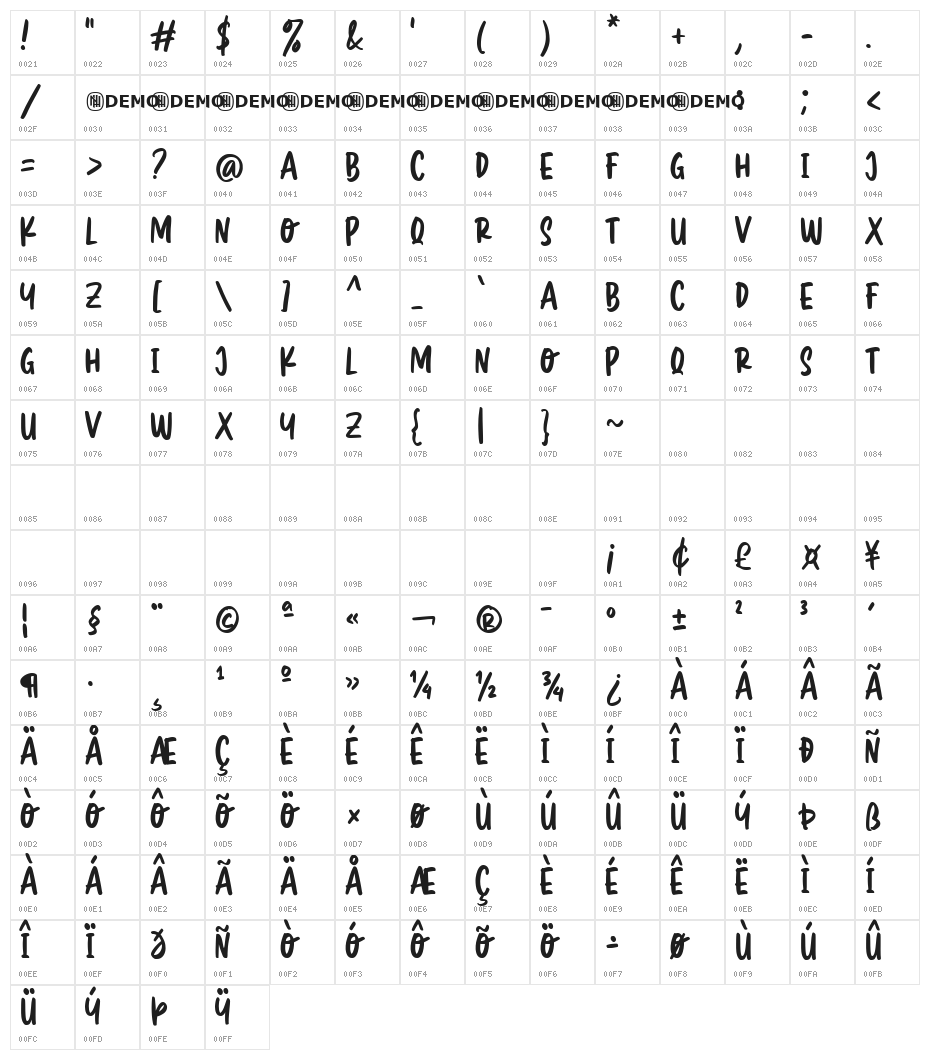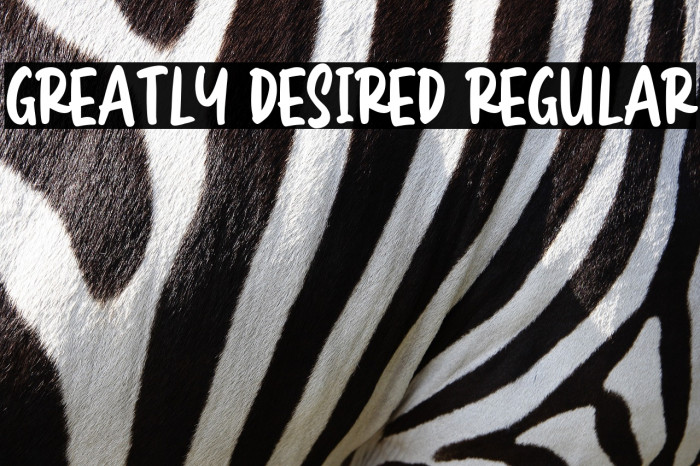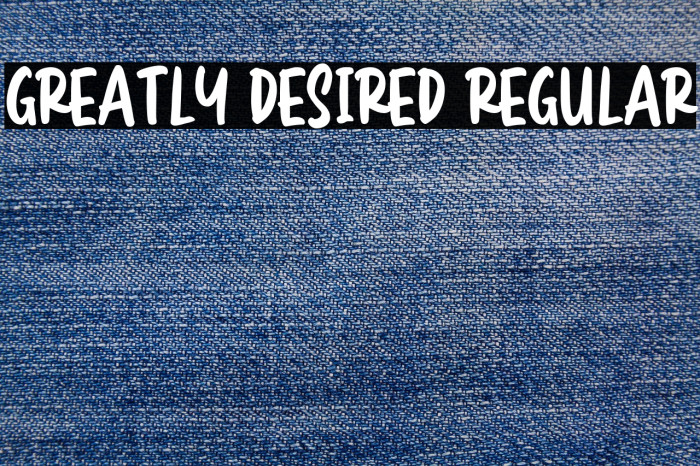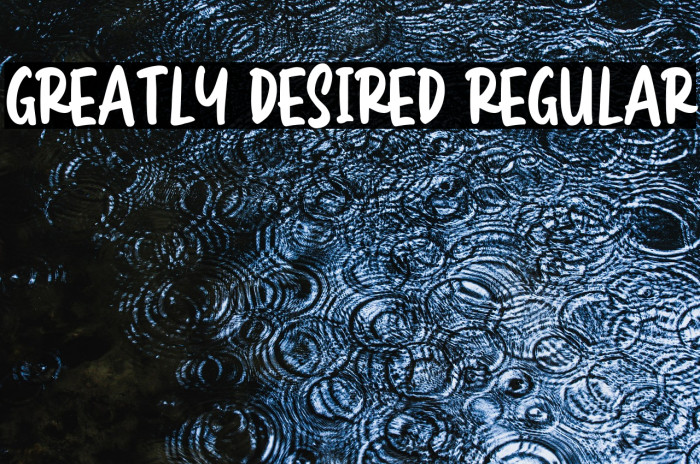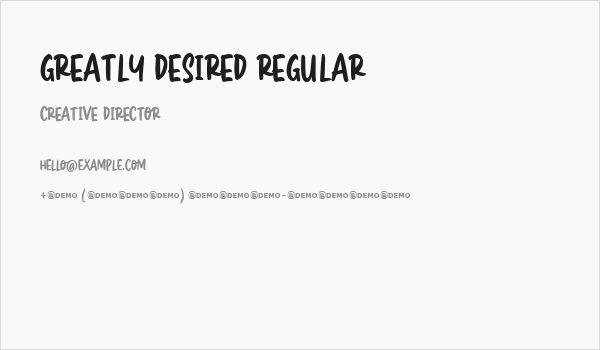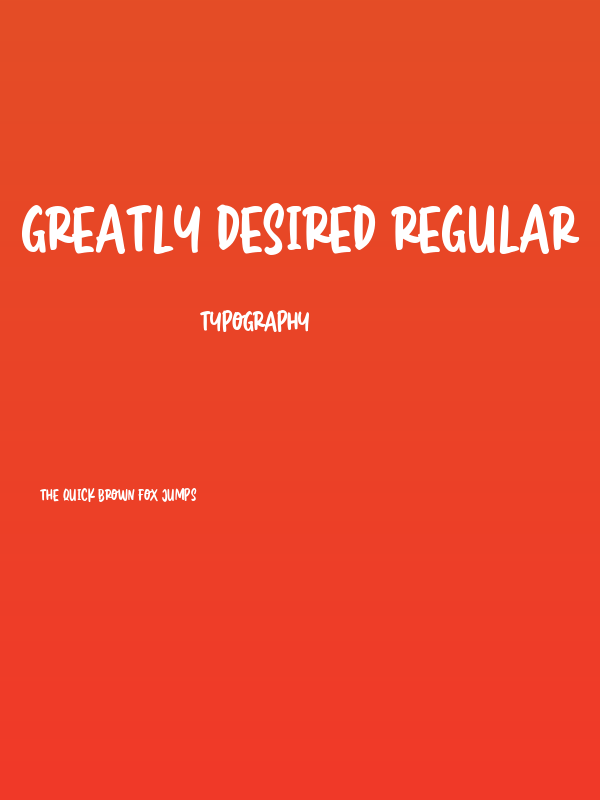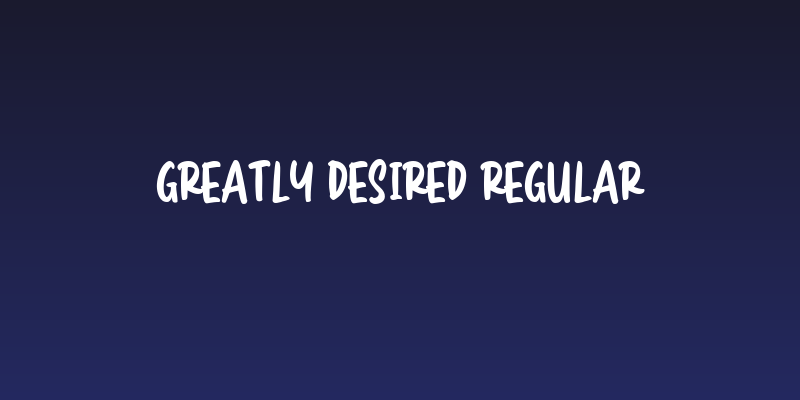
Greatly Desired Regular Font
Greatly Desired Regular Description
This font features a bold and expressive handwritten style, characterized by its thick strokes and playful curves. The letters are slightly slanted, giving a dynamic and energetic feel. The uppercase and lowercase letters maintain a consistent flow, with rounded edges that soften the overall appearance. The numbers and special characters are crafted with the same attention to detail, ensuring a cohesive look across all elements. This font exudes a casual and friendly vibe, making it suitable for projects that aim to convey warmth and approachability.
| Proposed Projects | Ideal for greeting cards, invitations, posters, and branding projects that require a personal touch. |